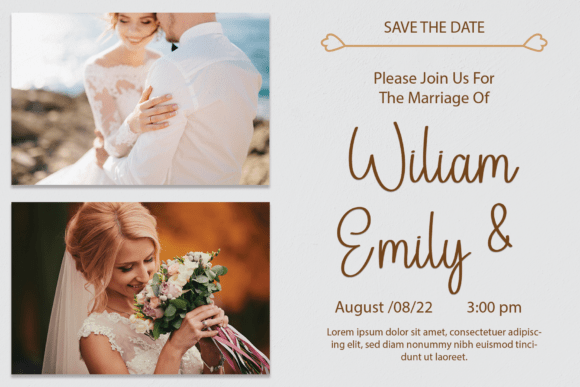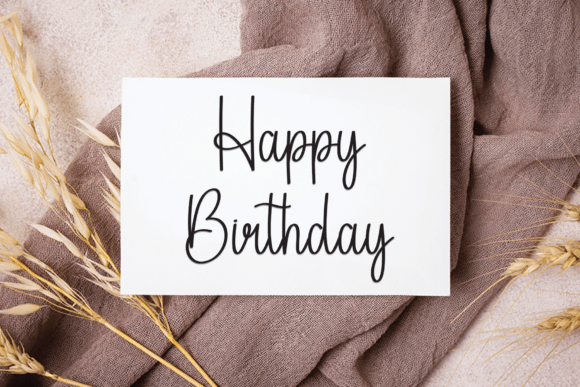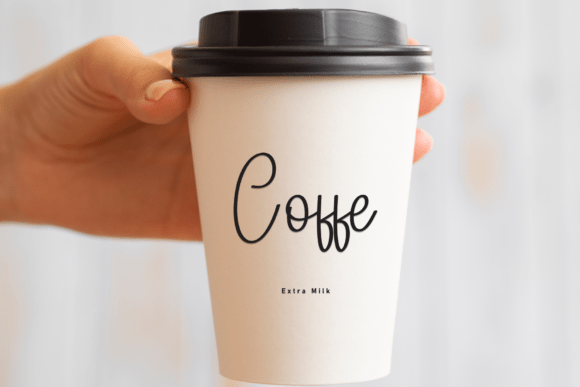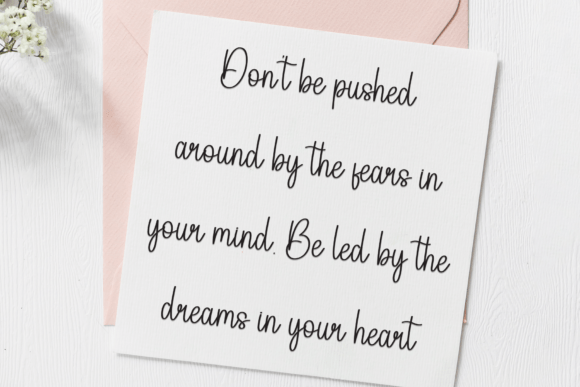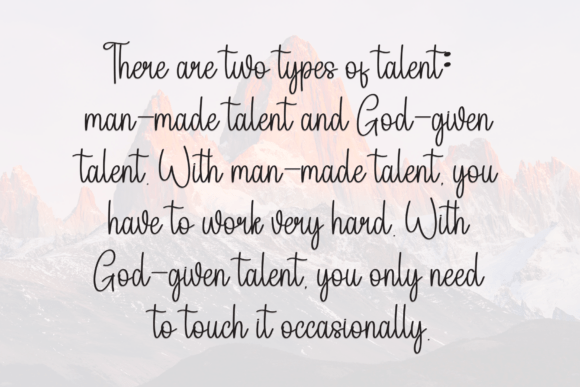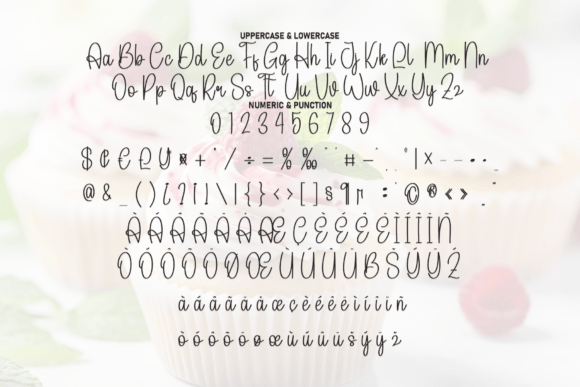
Introduction to Cupcake Beautiful Font
Cupcake Beautiful is a stylish script font that exudes elegance and contemporary charm.
Featuring graceful strokes, fluid curves, and carefully crafted letterforms, it captures the beauty of hand-drawn calligraphy with a modern twist Ideal for logos, invitations, packaging, and social media graphics, it adds a refined and sophisticated touch to any design.